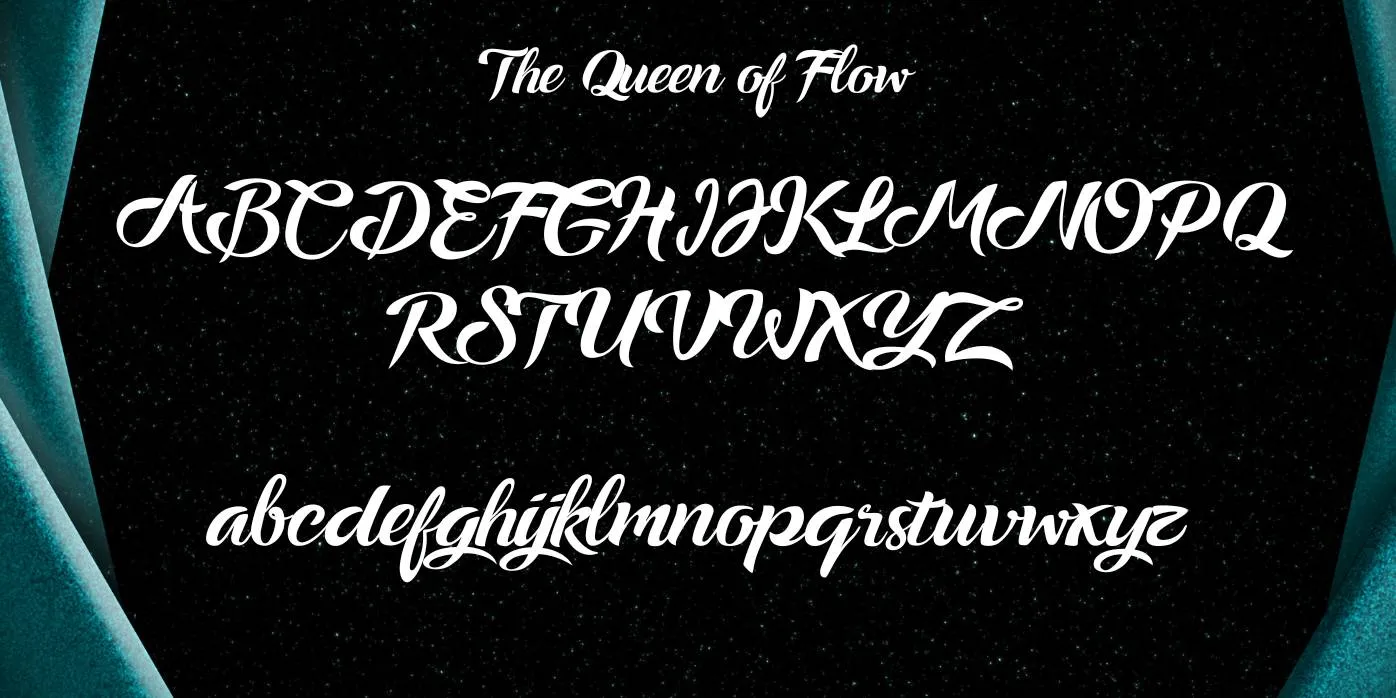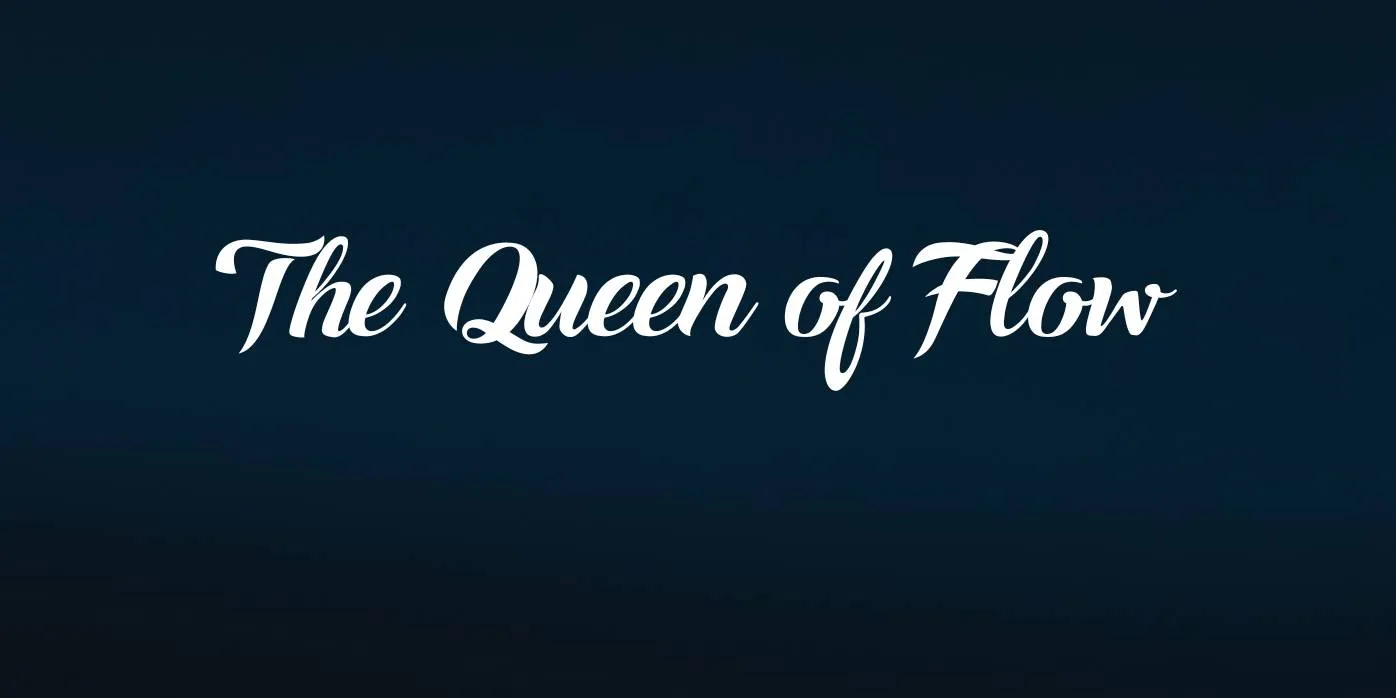
The Queen of Flow Font
Khoe Roni is the designer for this typeface. The Queen of Flow Font is an amazing font that is written in the Ampera font. This typeface is designed by Khoe Roni and is available for free download. This typeface is also called La Reina del Flow.